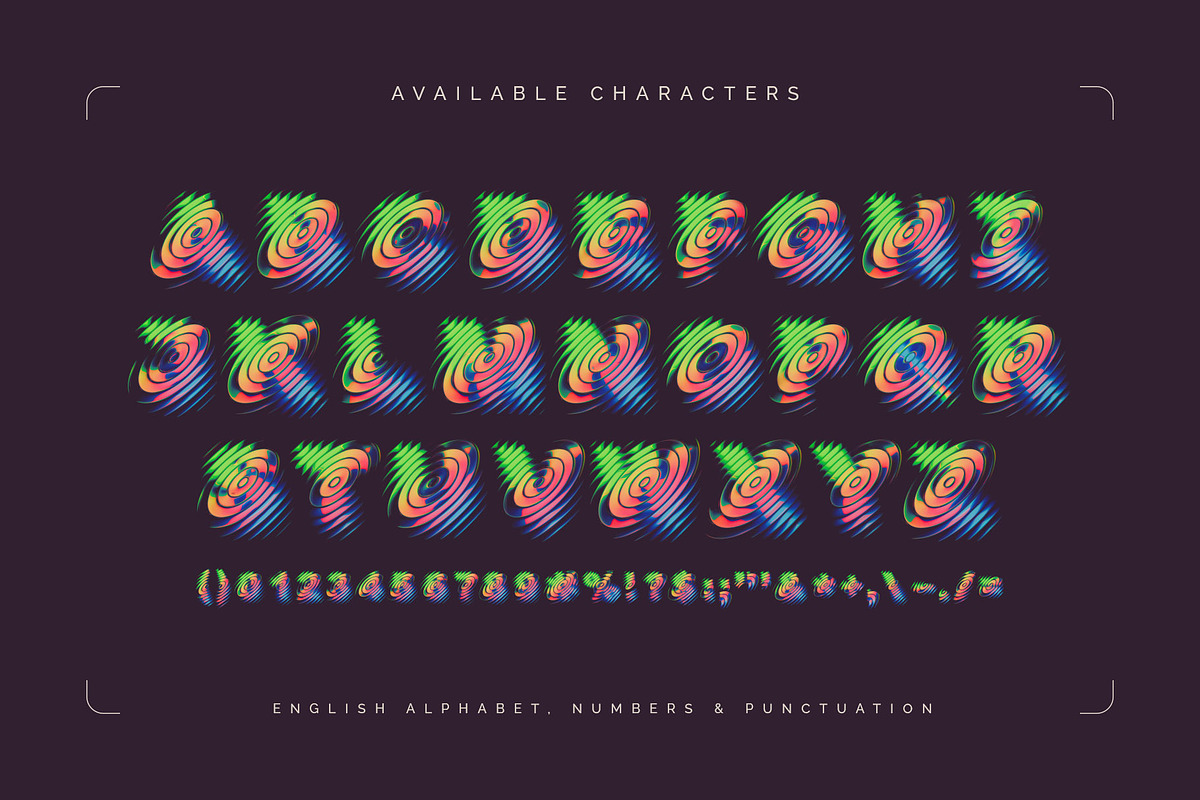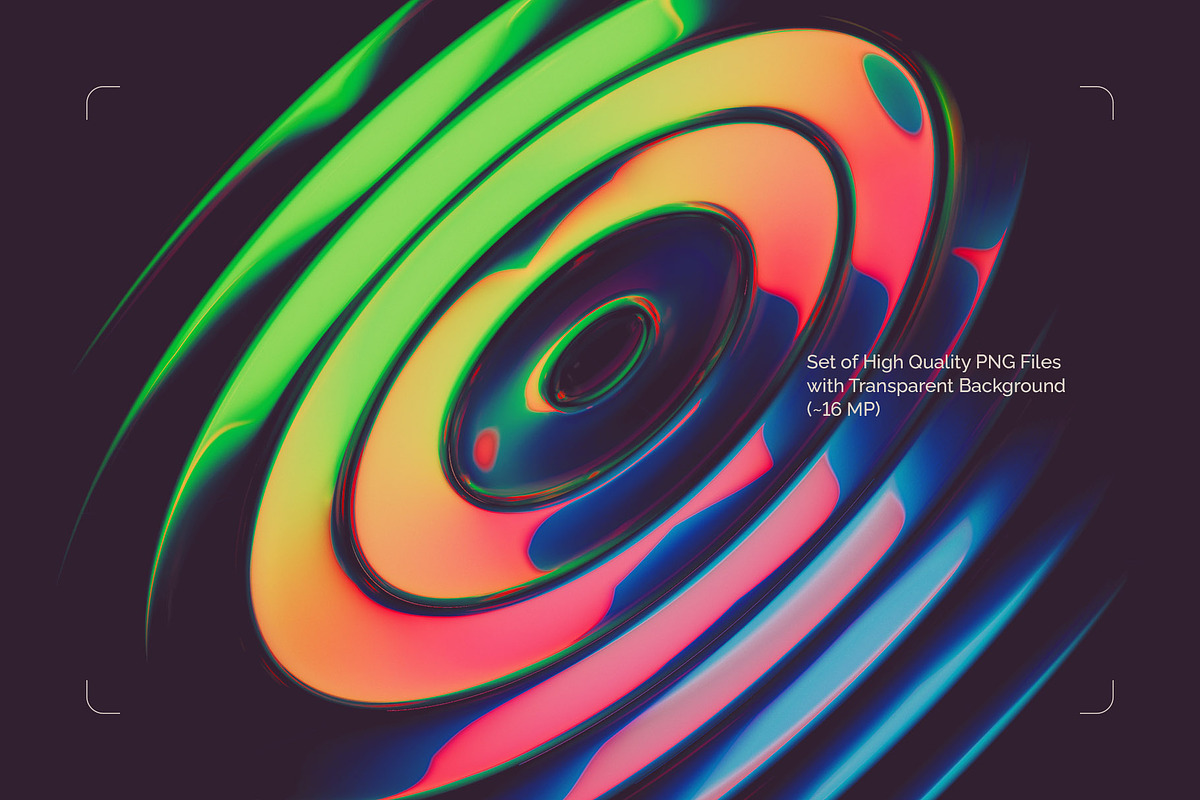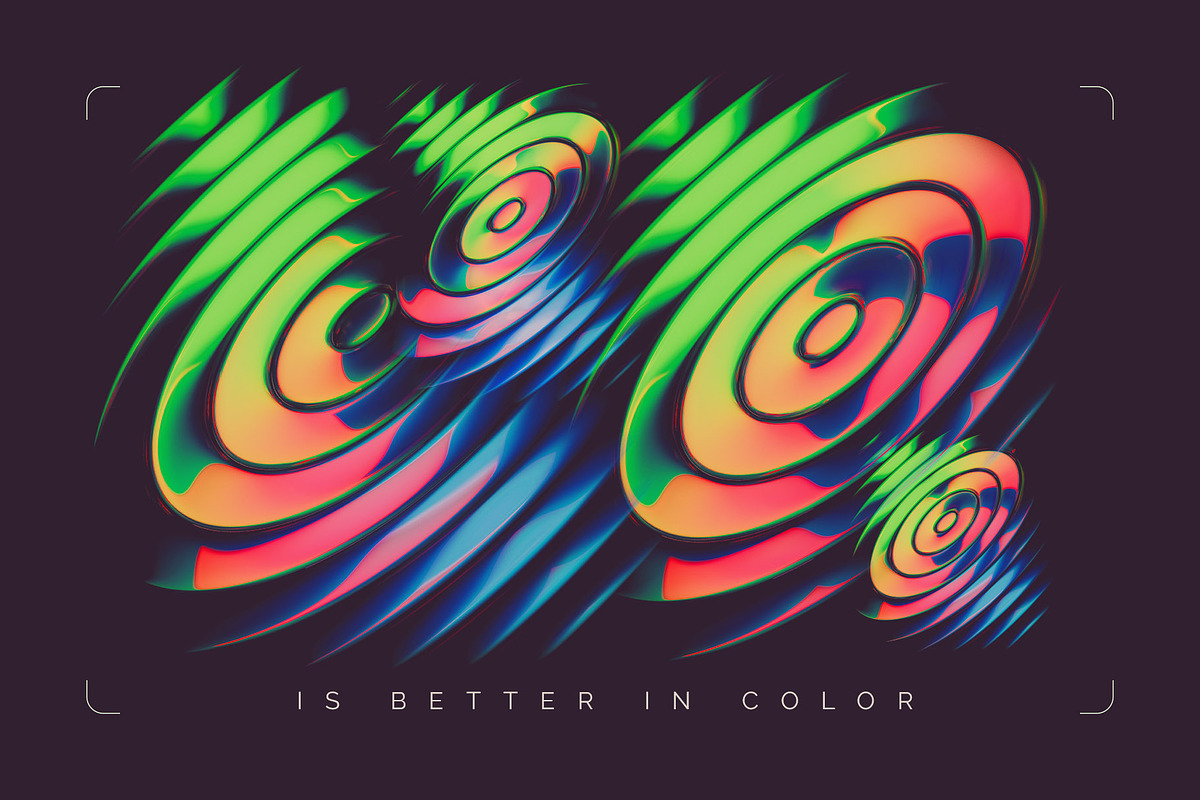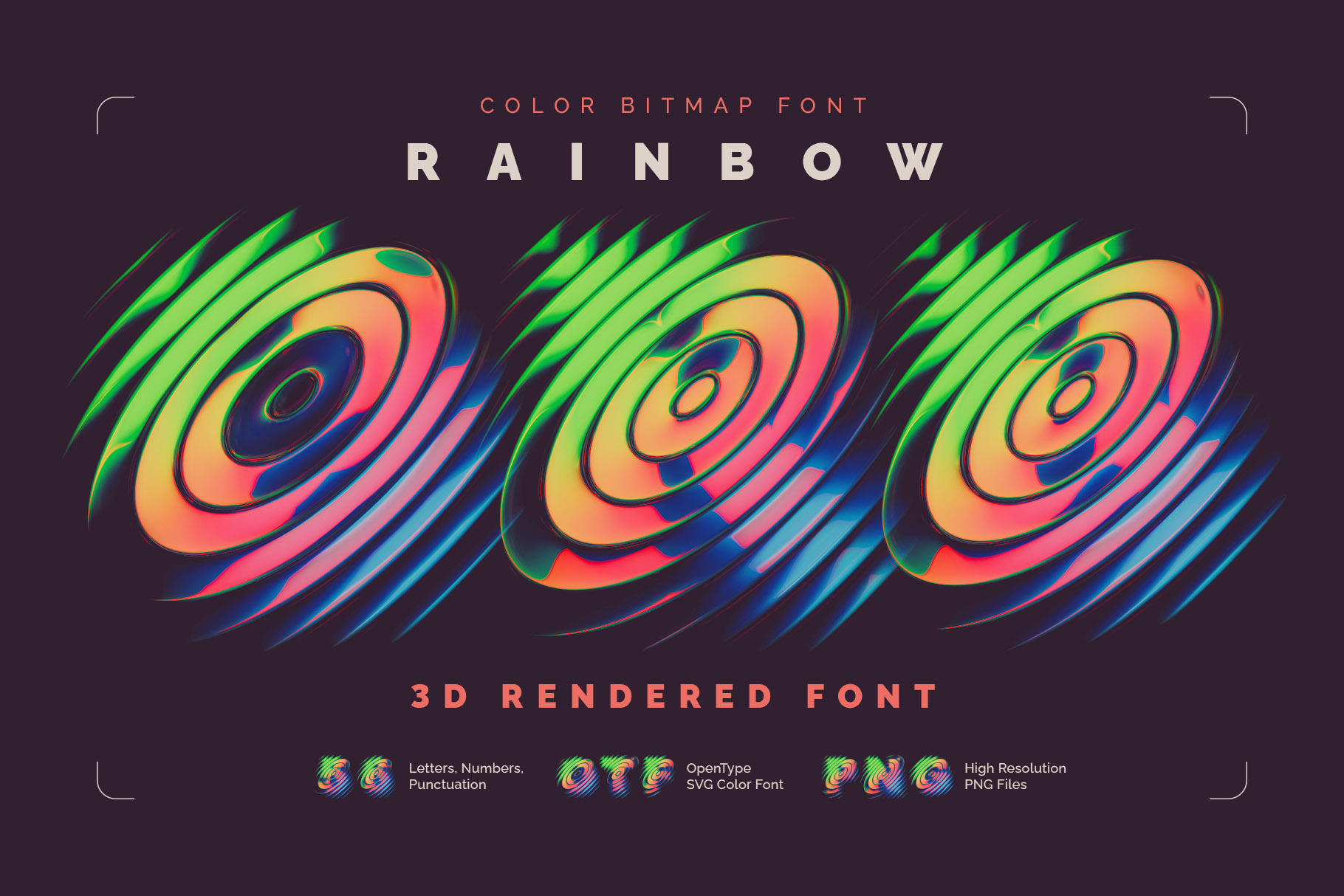
Rainbow Orb - Color Bitmap Font
Introducing Rainbow Orb, a colorful, creative font set. This 3D font has an abstract, round shape with rainbow letters refracting through a shiny glass ellipses.
Rainbow Orb is a color bitmap OpenType-SVG font, usable just like any standard OTF font. Additionally, the set includes high-resolution PNG files with transparent background (average resolution is 16 megapixels).
Consider that the font supports only the English language and basic punctuation. Be sure to review the included screenshot for a complete list of available characters.